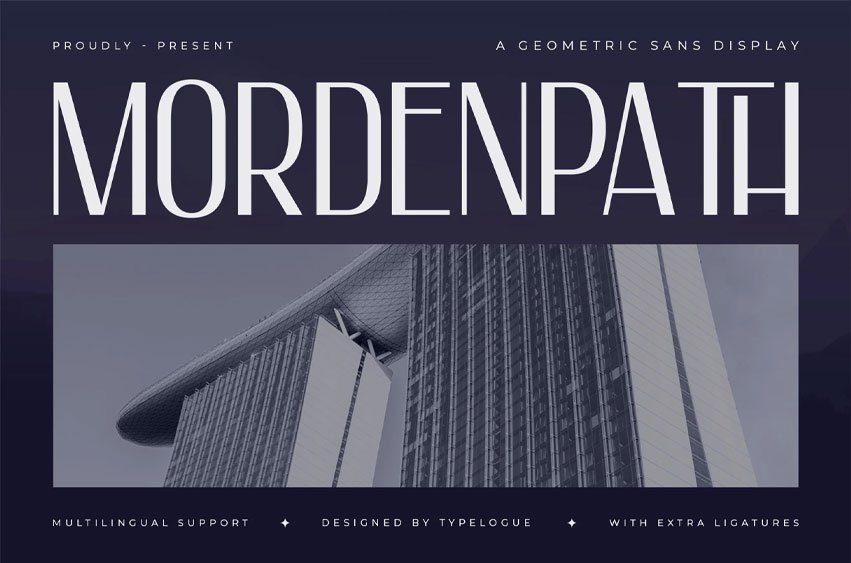
Mordenpath Font is a tall, high-contrast geometric sans built for commanding headlines and sleek logos.
The narrow proportions, razor-straight stems, and rounded inner counters create a distinctive Art‑Deco meets modern‑editorial voice that reads clean at size while looking premium in brand systems. Use it for fashion campaigns, magazine covers, product packaging, web hero sections, event posters, wayfinding, and minimalist identities where clarity, confidence, and style matter. Optimized spacing and sharp outlines ensure crisp performance in print and on screen.